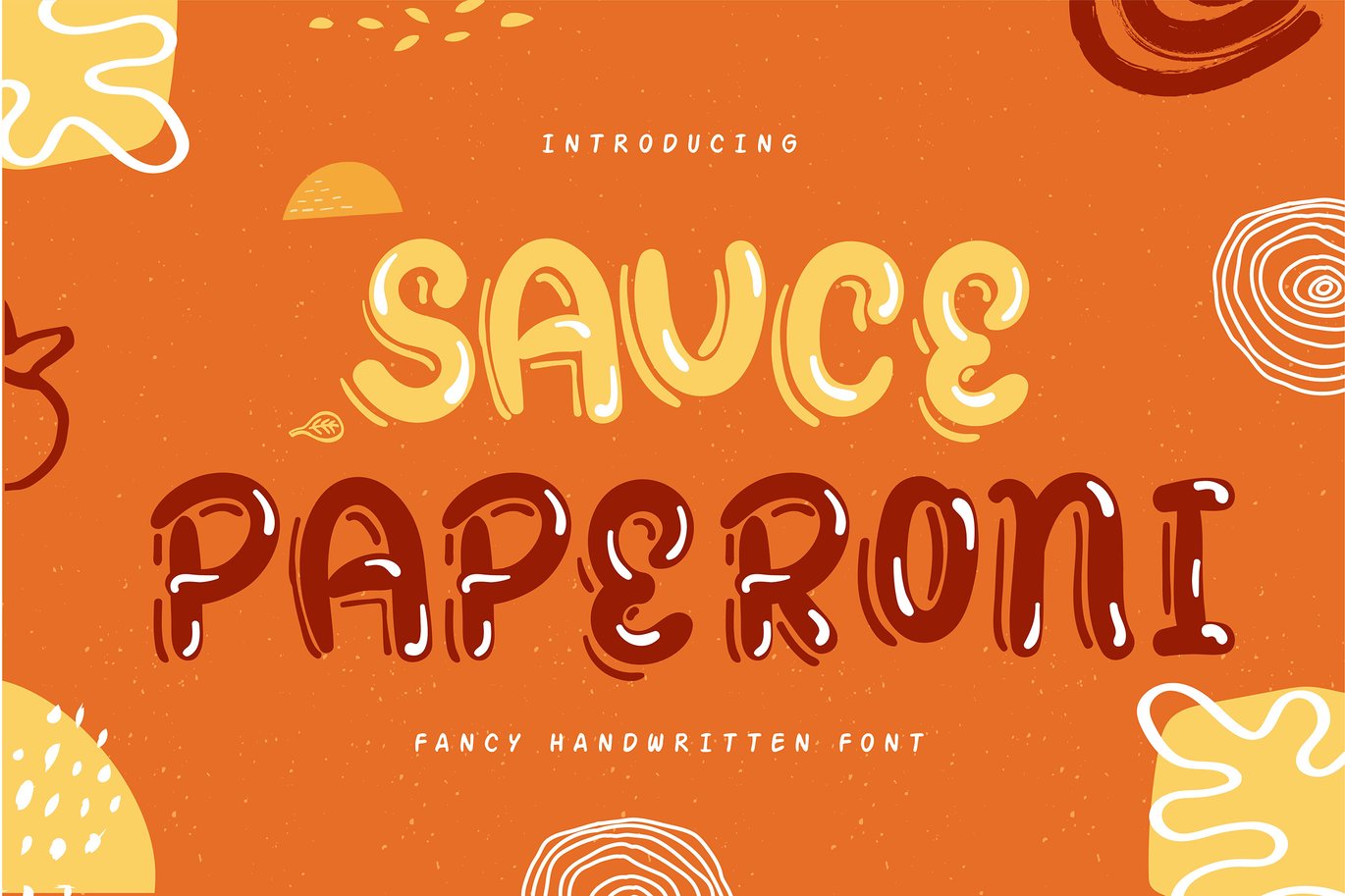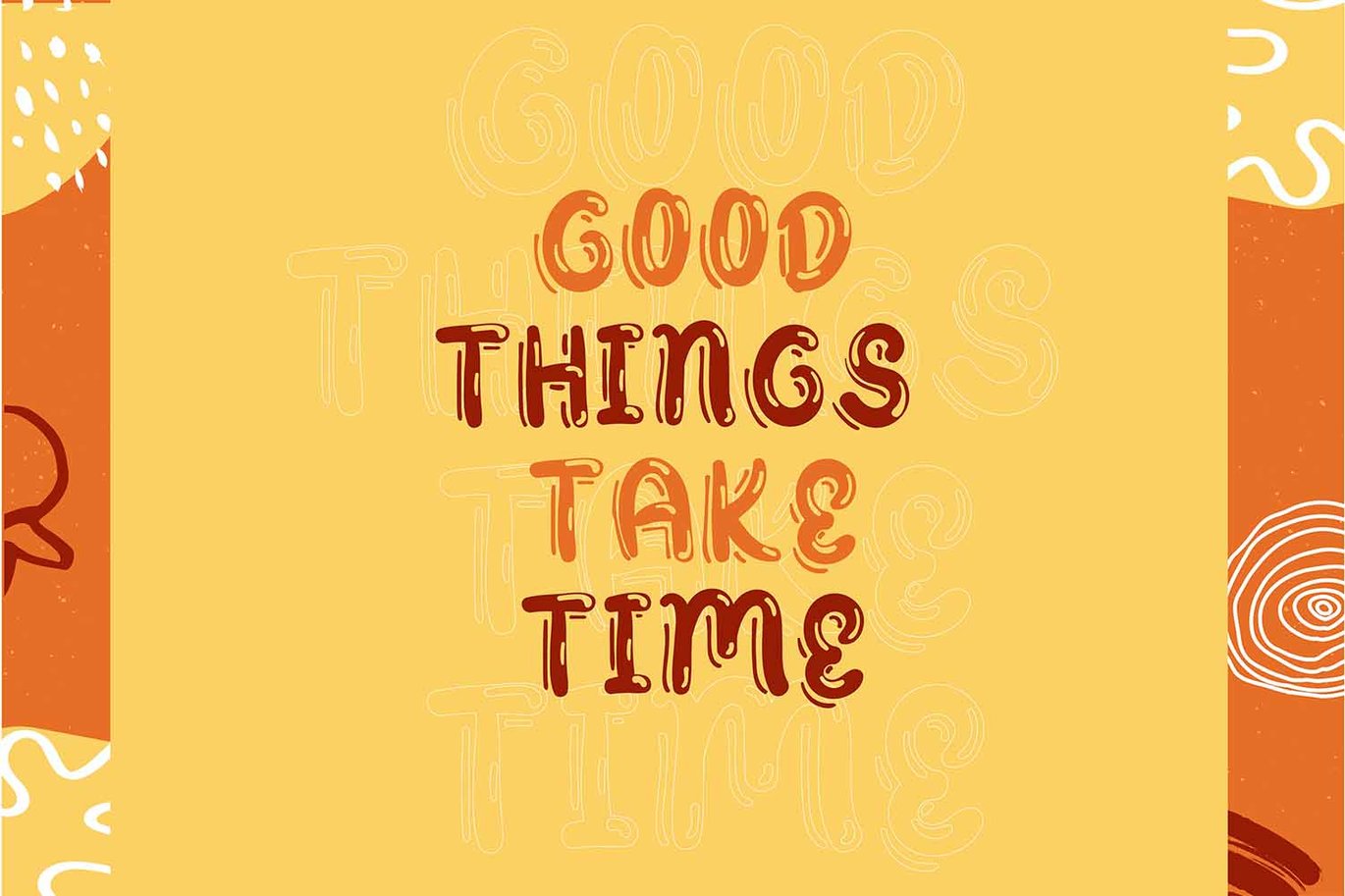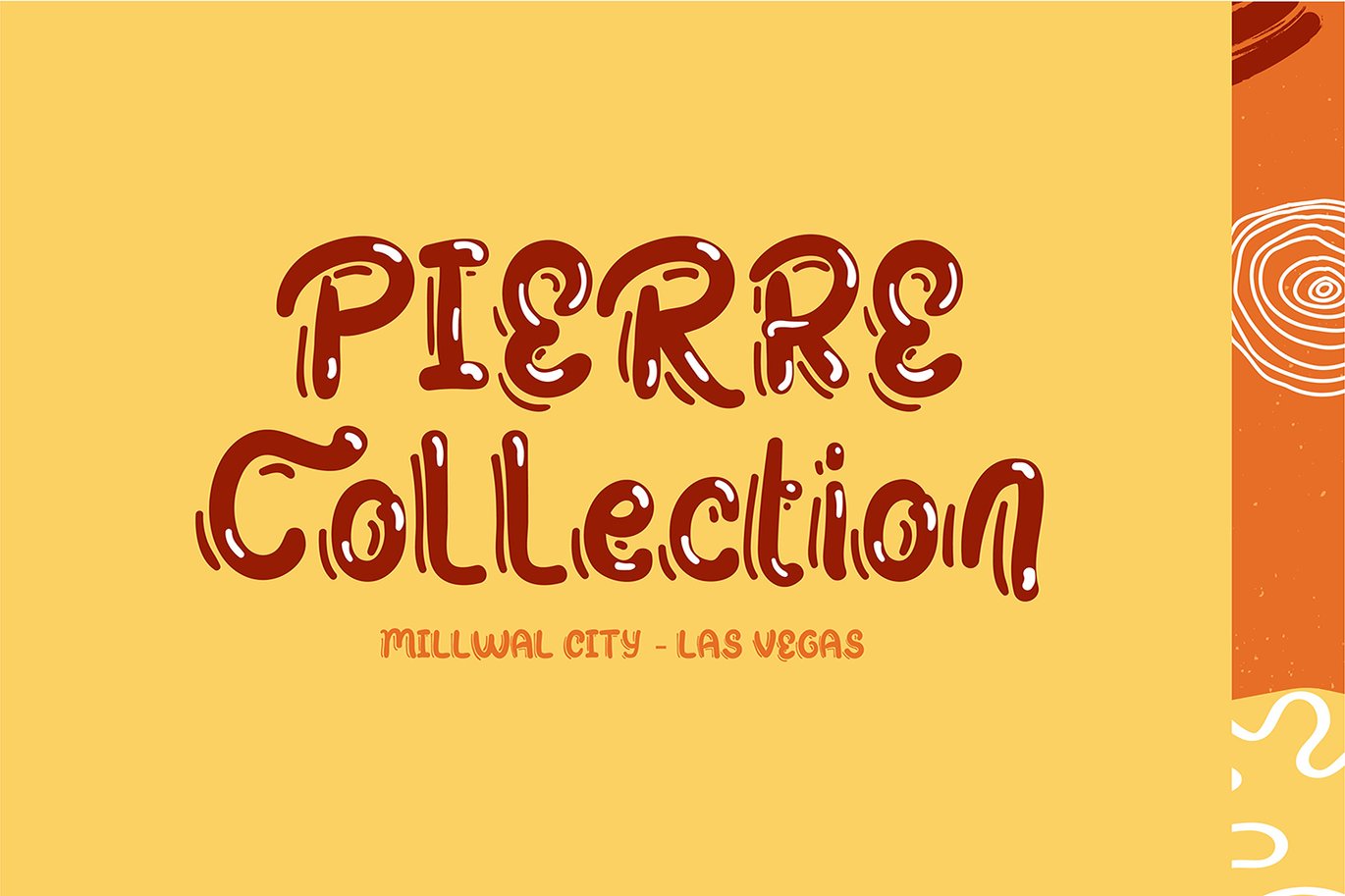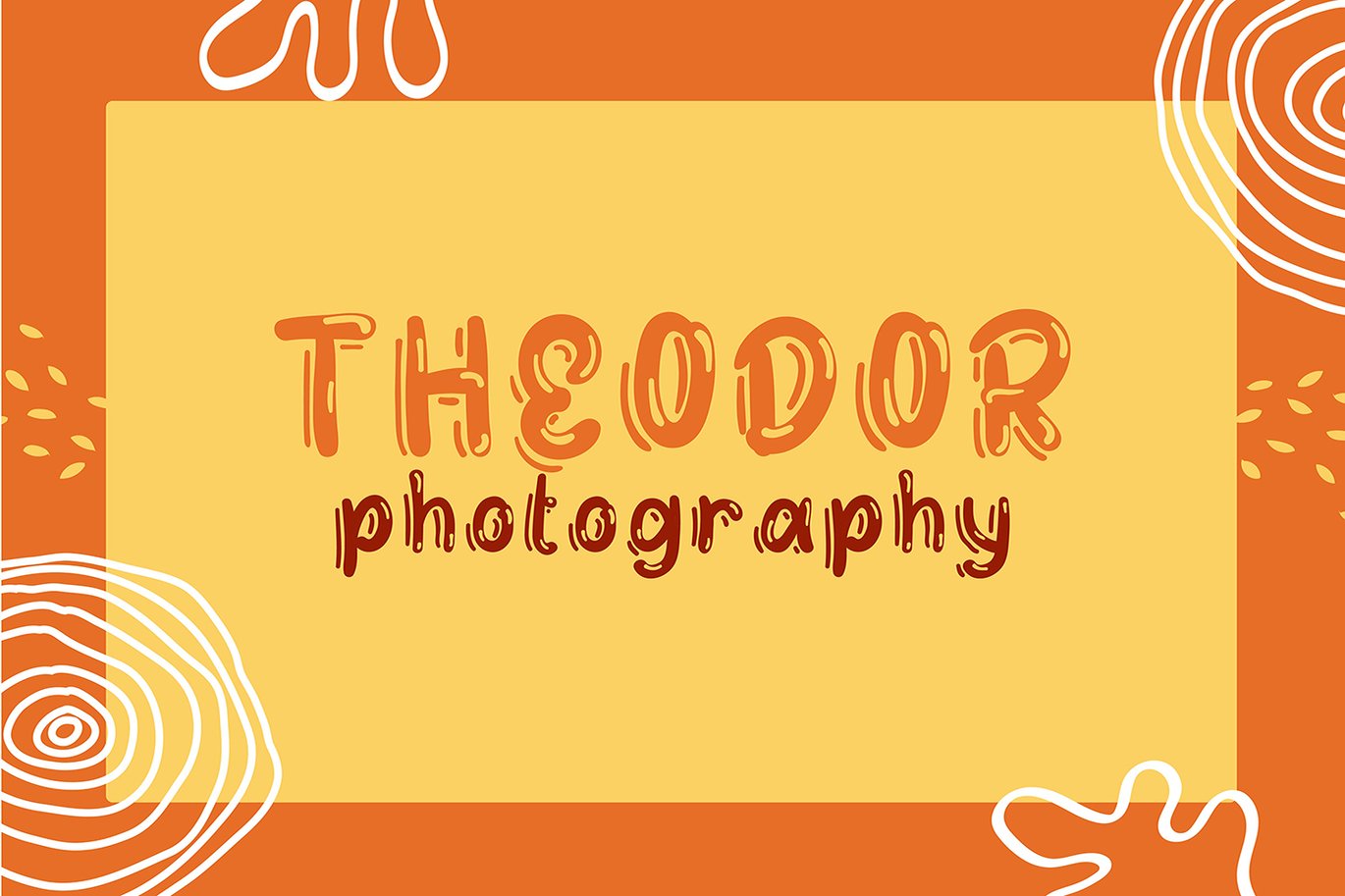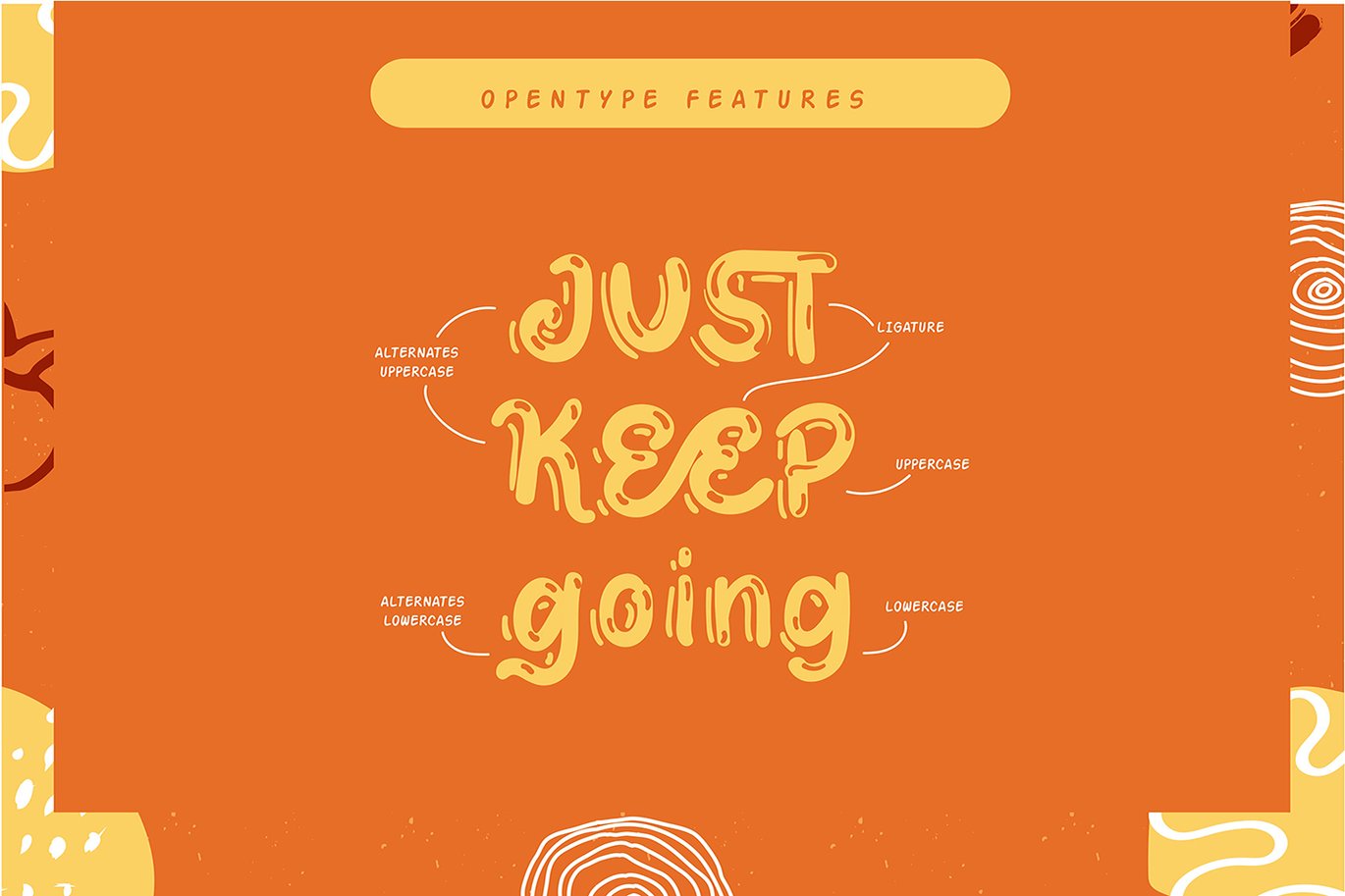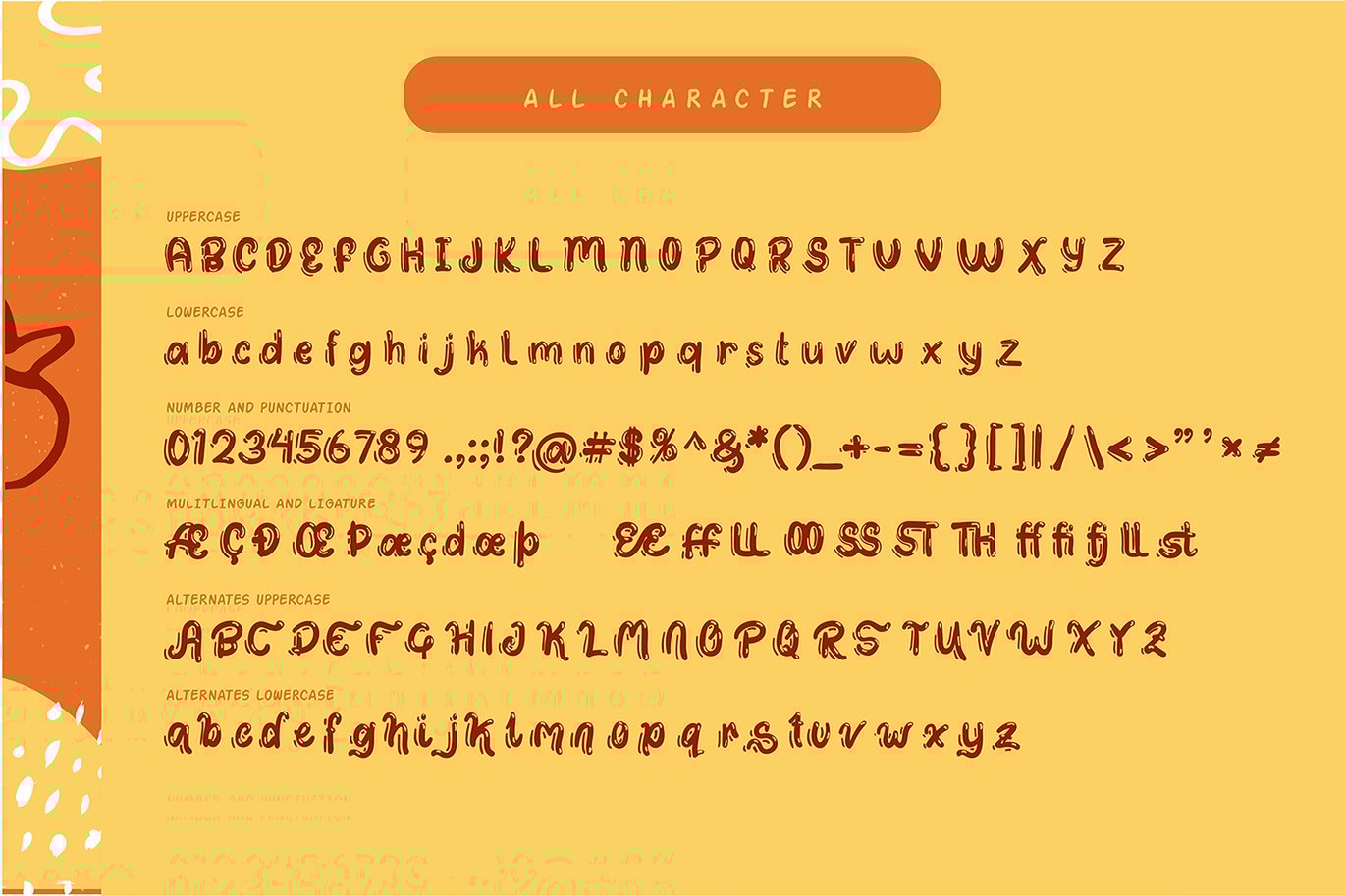
Sauce Paperoni | Fancy Handwritten Font
Sauce Paperoni | Fancy Handwritten Font with a calligraphy style, So beautiful on invitation like greeting cards, branding materials, business cards, quotes, posters, and more!